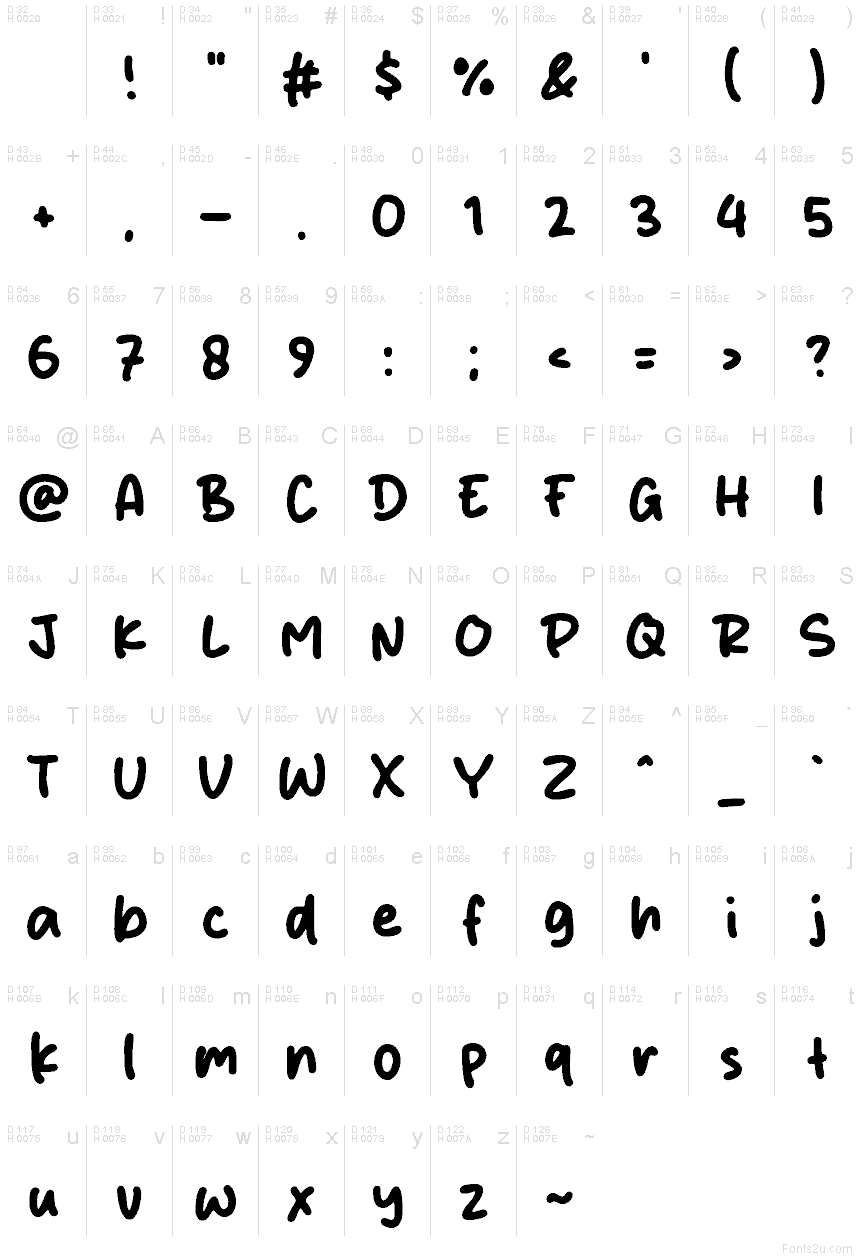
Chicken Rice
Chicken Rice font by MJType is a free handwritten font that feels like a thick marker gliding over smooth paper. Its rounded strokes, chunky curves, and slightly bouncy baseline give it a friendly, homemade energy that’s easy to read even at smaller sizes. There’s a cozy, café-menu warmth to the letters that makes them feel welcoming rather than messy or chaotic.
Using Chicken Rice, you can add a playful, human touch to food branding, kids’ products, recipe cards, social media graphics, posters, and event invitations. This free font shines when you let it go big and bold, then balance it with a clean sans serif for body text. It’s especially strong on colorful backgrounds, where its inky, solid shapes stand out with cheerful clarity.